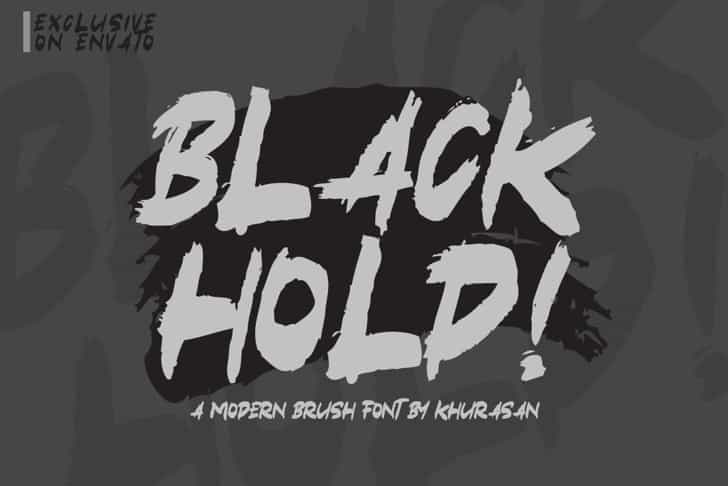
Discover Black Hold Brush Font, part of the Brush collection—a versatile and unique font perfect for adding a personal touch to your projects. Download it for free and enjoy crafting designs with style, from invitations to social media posts. This font is available exclusively for personal use, giving you the freedom to create without limits. Unlock your creativity with Black Hold Brush Font today!
Black Hold Font is accompanied by uppercase, lowercase, standard punctuation, numerals and special letters for most of the European. Black Hold Font– a font that has an emotional and personal touch in its handwriting. Within a few seconds and his own specific style,